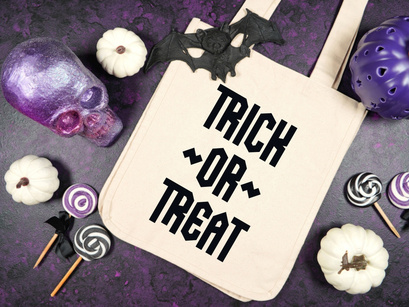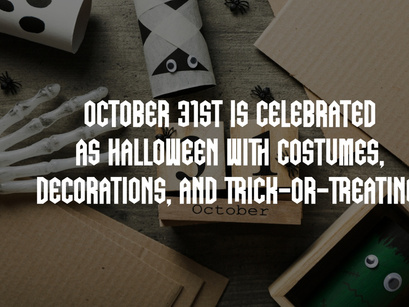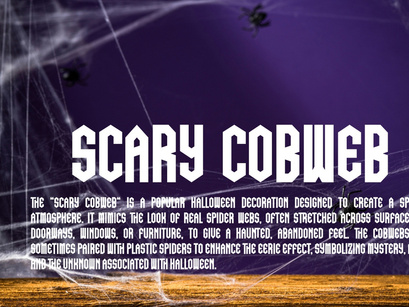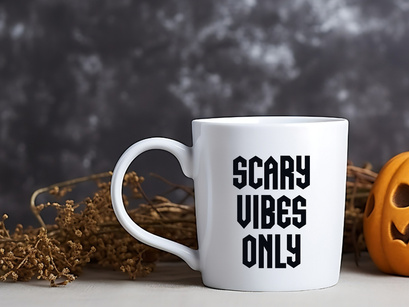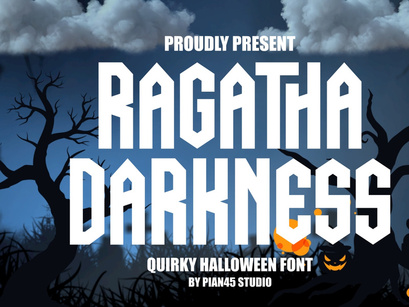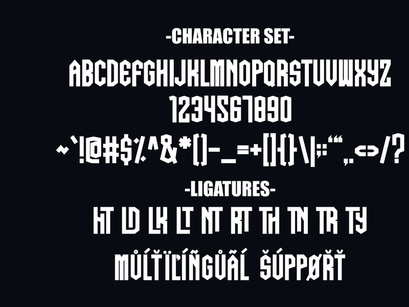
Ragatha Darkness - Quirky Halloween FontPremium
Ragatha Darkness - Quirky Halloween Font
Ragatha Darkness
Ragatha Darkness is the ultimate Quirky Halloween Font, featuring a spooky and sharp display style perfect for the scary season. Its distressed, dagger-like serifs and menacingly irregular shapes make it ideal for horror movie posters, scary party invitations, dark themed branding, and thrilling video game titles. This all-caps typeface ensures a high-impact, eerie, and instantly recognizable aesthetic for any project that needs a touch of true gothic horror and frightening fun.